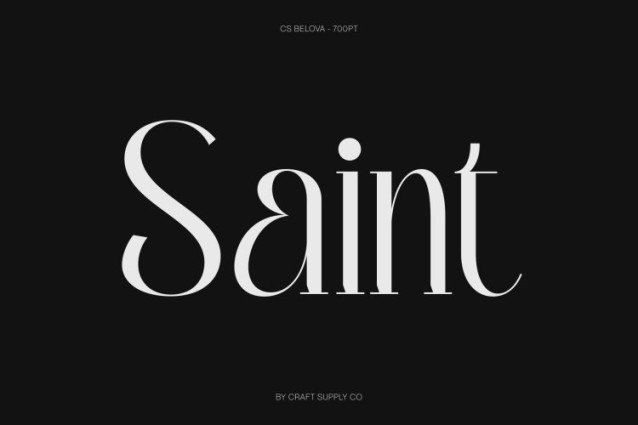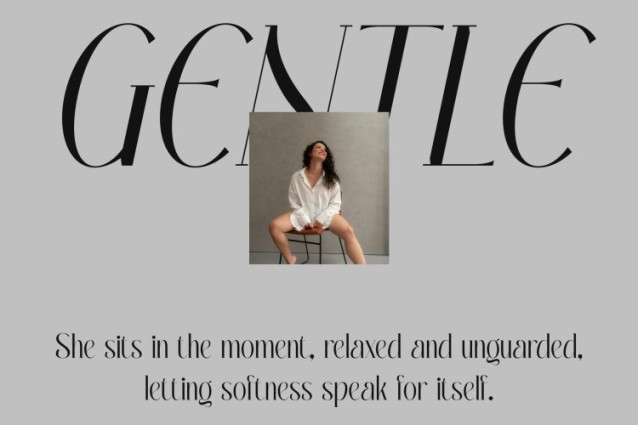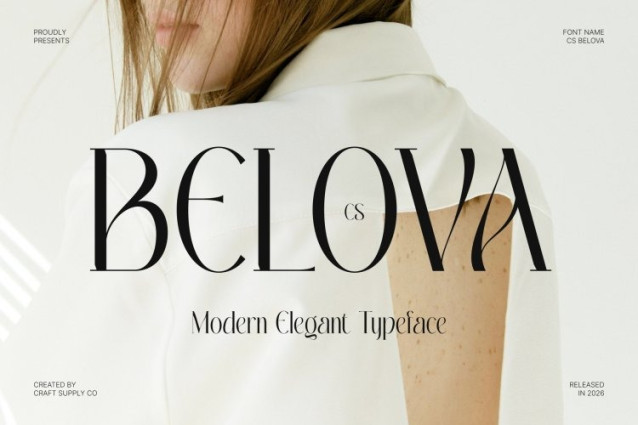
CS Belova Font
CS Belova Font This is an elegant serif font crafted with clean, slender lines that highlight clarity and refinement. Its well-balanced structure delivers a sophisticated foundation, while subtle details introduce a sense of lightness and charm. The result is a serif that feels polished yet approachable, making it visually engaging without losing elegance.
Modern Aesthetic with Playful Character
What sets this font apart is its playful touch within a modern framework. The graceful proportions and gentle curves create an aesthetic look that feels fresh, stylish, and full of personality. This playful nuance softens the formality of traditional serifs, allowing the font to express beauty and creativity alongside sophistication.
Beauty in Refined Simplicity
This font embraces simplicity as a design strength. The slender strokes and clean construction create an airy, elegant appearance that enhances readability while maintaining a fashionable tone. Its aesthetic balance makes it suitable for designs that seek refinement with a contemporary, expressive edge.
Perfect for Fashion and Editorial Design
Ideal for fashion branding, posters, and editorial layouts, this font shines in headlines, titles, and refined typographic compositions. It brings a modern, beautiful, and sophisticated presence to fashion campaigns, magazine spreads, and stylish posters, helping designs feel elegant, playful, and visually captivating at the same time.